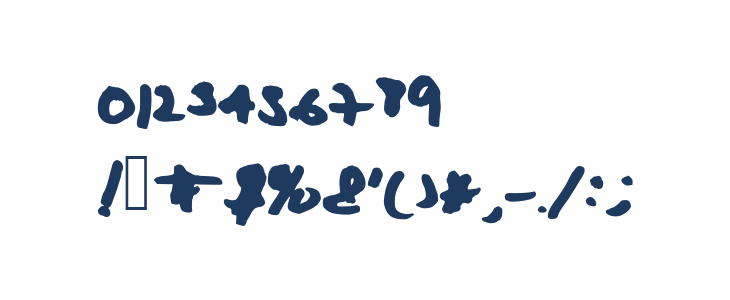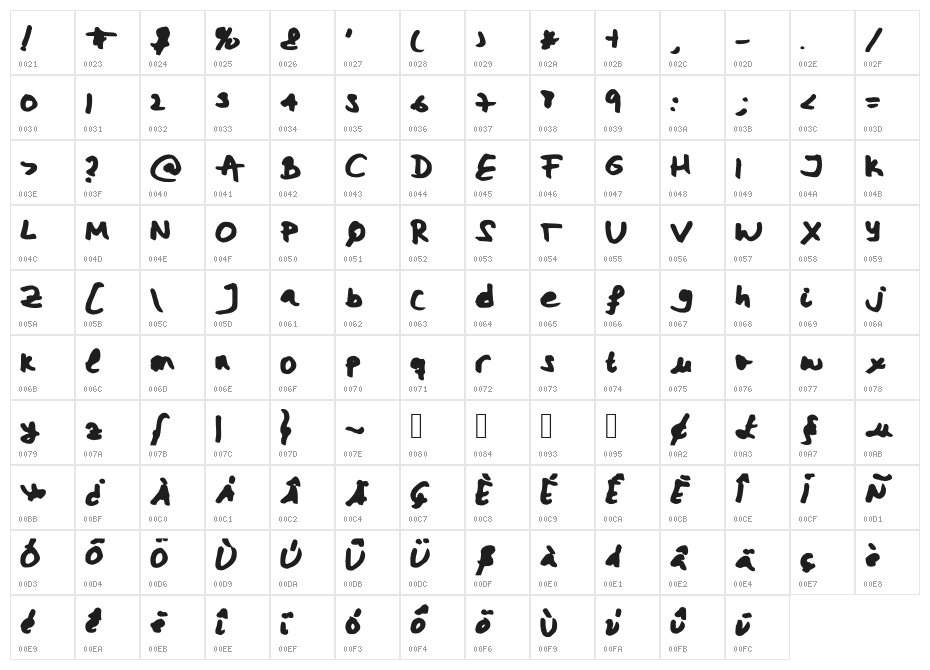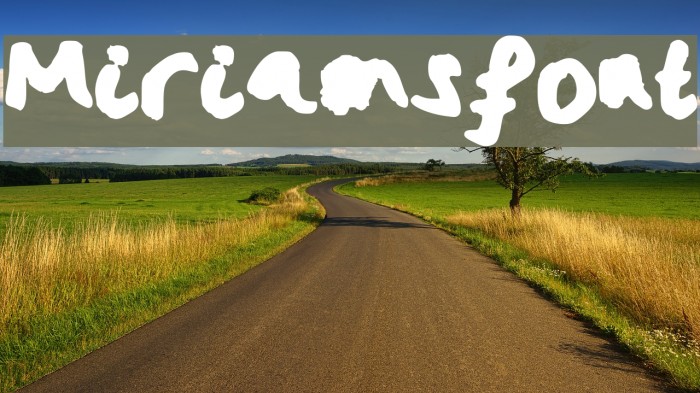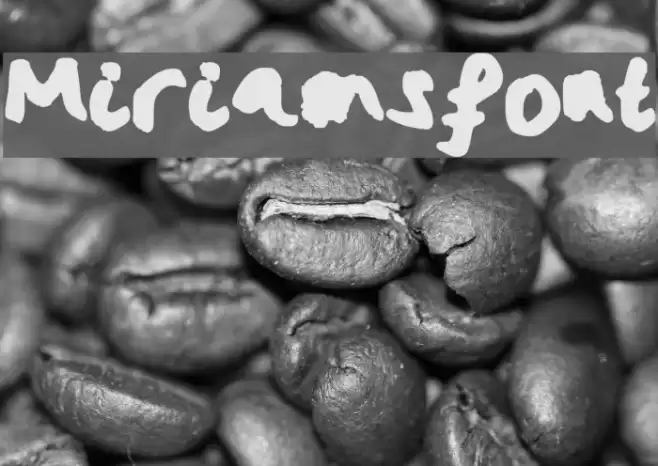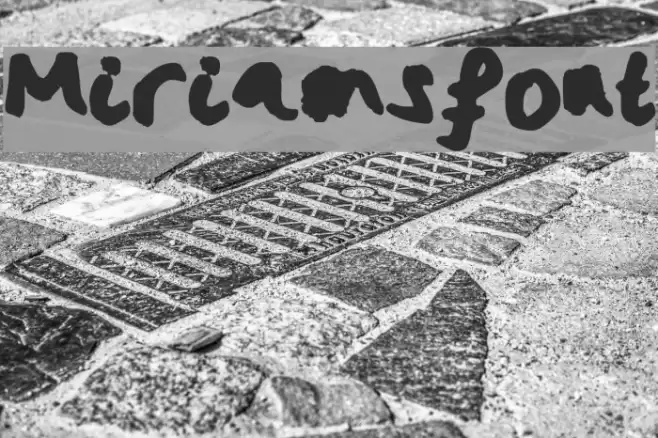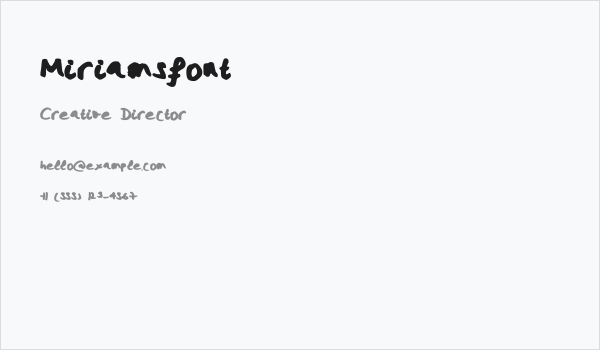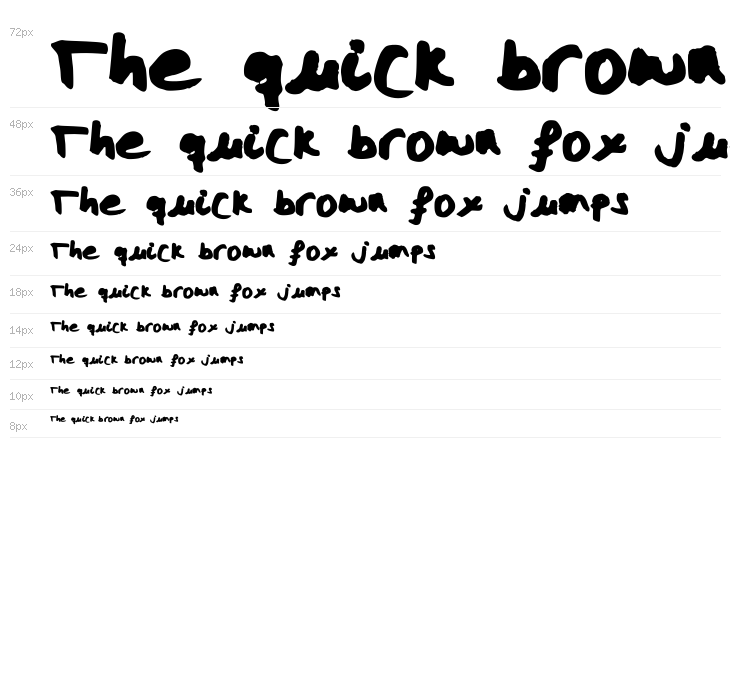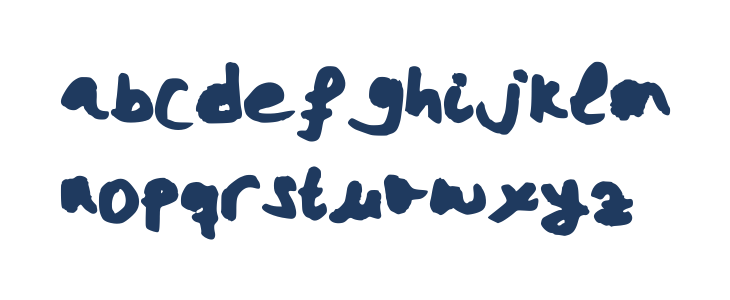
Miriamsfont Font
Miriamsfont Description
This font exhibits a bold and expressive handwritten style, characterized by its thick, uneven strokes and playful, organic shapes. The letters are highly dynamic, with a sense of movement and fluidity that gives them a lively appearance. The uppercase and lowercase letters maintain a consistent style, with some characters featuring unique flourishes and loops that add to the font's charm. The numbers and special characters are equally bold and maintain the same energetic style, making them stand out. This font's overall aesthetic is informal and artistic, perfect for projects that require a personal touch.
MIRIAMSFONT UPPERCASE
MIRIAMSFONT LOWERCASE
MIRIAMSFONT OTHER CHARS